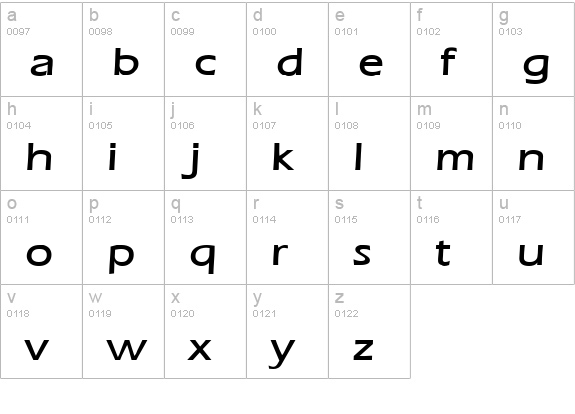
Eric Wide Bold is a strong, high-contrast, extended-width variant in the Eric typeface family \xE2\x80\x94 well suited to headlines, attention-grabbing titles, and strong calls-to-action.
Introducing Eric Wide Bold font - a versatile and eye-catching typeface that exudes modernity and sophistication. With its bold and distinct letterforms, Eric Wide Bold is perfect for making a strong statement in your designs. This font strikes the perfect balance between elegance and readability, making it ideal for a wide range of projects. And the best part? Eric Wide Bold font is available for free download at FontsMarket.com! Embrace the endless possibilities of this font and elevate your designs with its bold and impactful aesthetic. Whether you're working on branding, advertising, posters, or any other creative project, Eric Wide Bold font is sure to make a lasting impression. Download it today and add a touch of style and professionalism to your work.